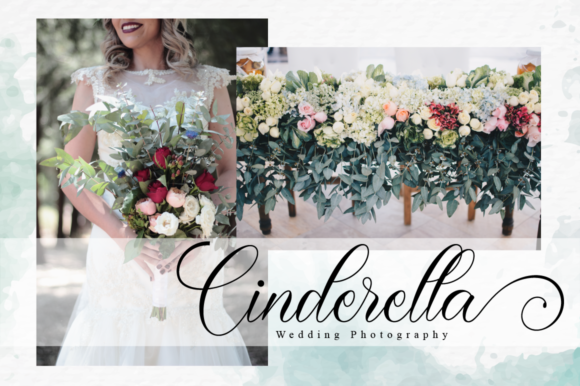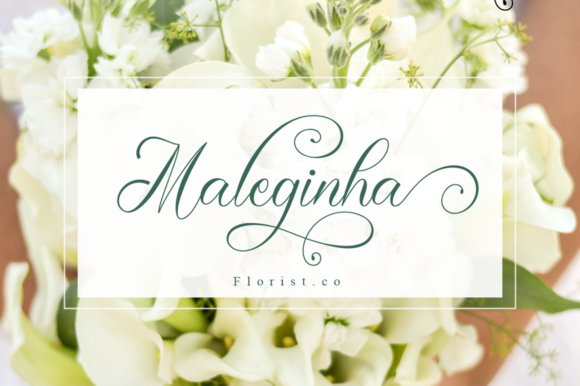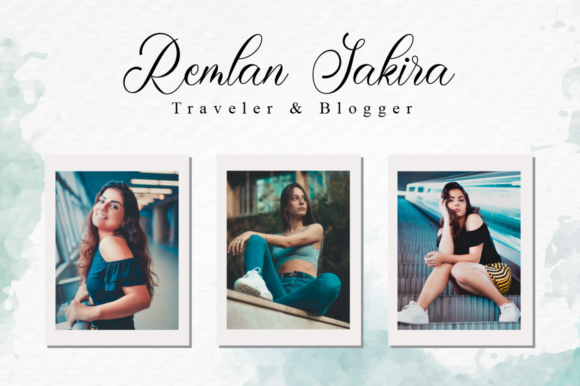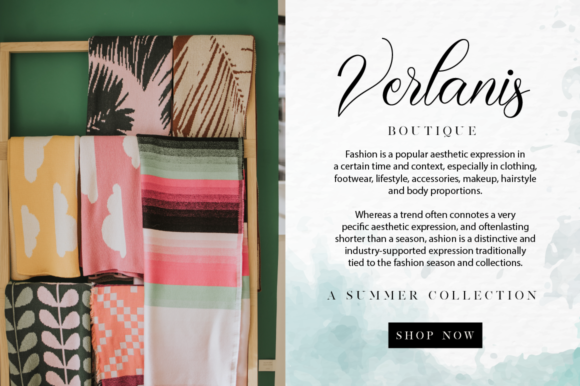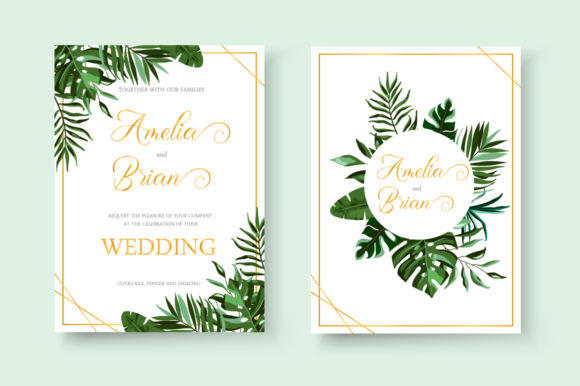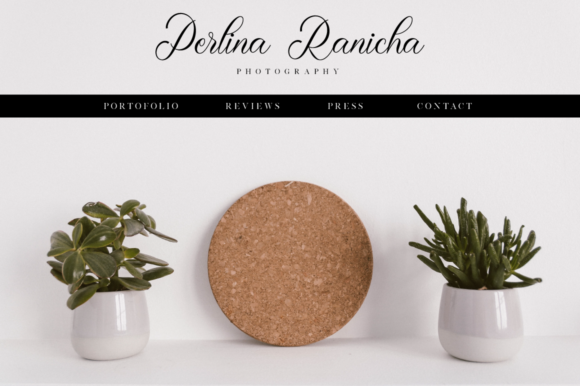
Cerlyneeta Font: Elevate Your Designs with Elegance and Sophistication
In the world of typography, a font can make or break a design. For designers and crafters seeking to add a touch of elegance and sophistication to their creative projects, Cerlyneeta font is an excellent choice. This delicate, elegant, and flowing handwritten font is designed to bring a sense of refinement and poise to any design.
The Characteristics of Cerlyneeta Font
Cerlyneeta font boasts beautiful and well-balanced characters that make it an ideal match for a wide range of designs. Its varying baseline, smooth lines, gorgeous glyphs, and stunning alternates work in harmony to create a visually appealing effect. The font’s delicate and flowing nature makes it perfect for designs that require a touch of elegance, such as wedding invitations, branding materials, and digital content.
One of the standout features of Cerlyneeta font is its PUA (Private Use Area) encoding. This means that users can access all the glyphs and swashes with ease, allowing for greater flexibility and creativity in design. With PUA encoding, designers can effortlessly navigate the font’s extensive character set, including alternates, ligatures, and ornaments, to create unique and captivating designs.
Cerlyneeta font’s versatility is one of its greatest strengths. Its elegant and flowing nature makes it suitable for a wide range of design applications, including:
- Digital content, including social media graphics and blog posts
- Packaging design, such as labels and product tags
- Art and craft projects, including scrapbooking and journaling
Why Choose Cerlyneeta Font?
With so many fonts available, why choose Cerlyneeta? Here are just a few reasons:
- Elegance and sophistication: Cerlyneeta font adds a touch of refinement and poise to any design.
- Flexibility: The font’s PUA encoding and extensive character set make it easy to use and customize.
- Versatility: Cerlyneeta font is suitable for a wide range of design applications.
- High-quality design: The font’s beautiful and well-balanced characters ensure a professional finish.
Tips for Using Cerlyneeta Font
To get the most out of Cerlyneeta font, here are a few tips:
- Experiment with different sizes and colors: Cerlyneeta font looks great in a variety of sizes and colors, so don’t be afraid to try out different combinations.
- Mix and match with other fonts: Cerlyneeta font pairs well with other fonts, so try combining it with a bold font for headings or a sans-serif font for body text.
- Use the font’s glyphs and swashes: Take advantage of Cerlyneeta font’s PUA encoding to add extra flair to your designs.
Cerlyneeta font is a beautiful and elegant handwritten font that is sure to elevate your designs. With its delicate and flowing nature, PUA encoding, and versatility, it’s an excellent choice for designers and crafters seeking to add a touch of sophistication to their creative projects. Whether you’re designing wedding invitations, branding materials, or digital content, Cerlyneeta font is a great choice. So why not give it a try and see how it can bring your designs to life?